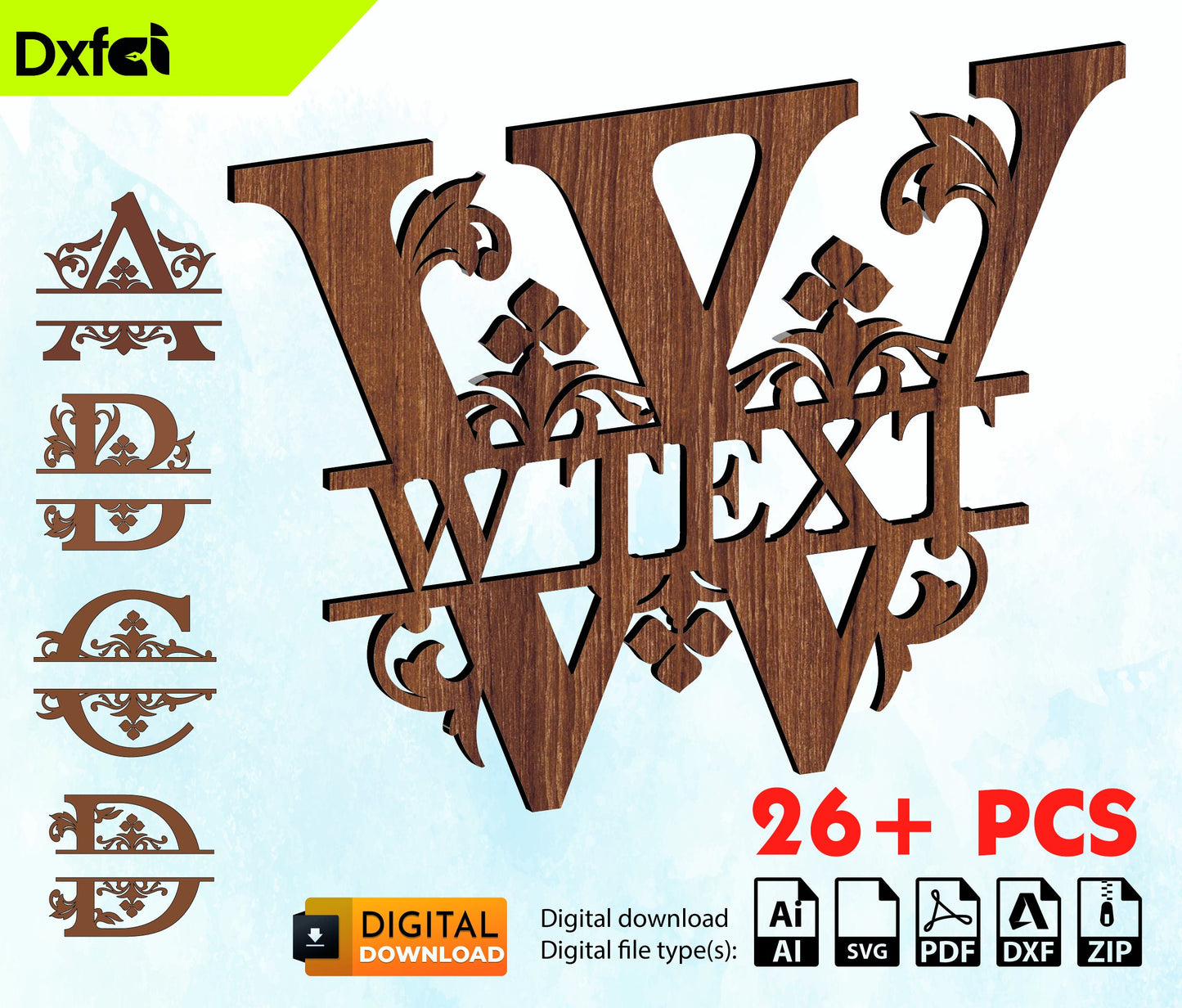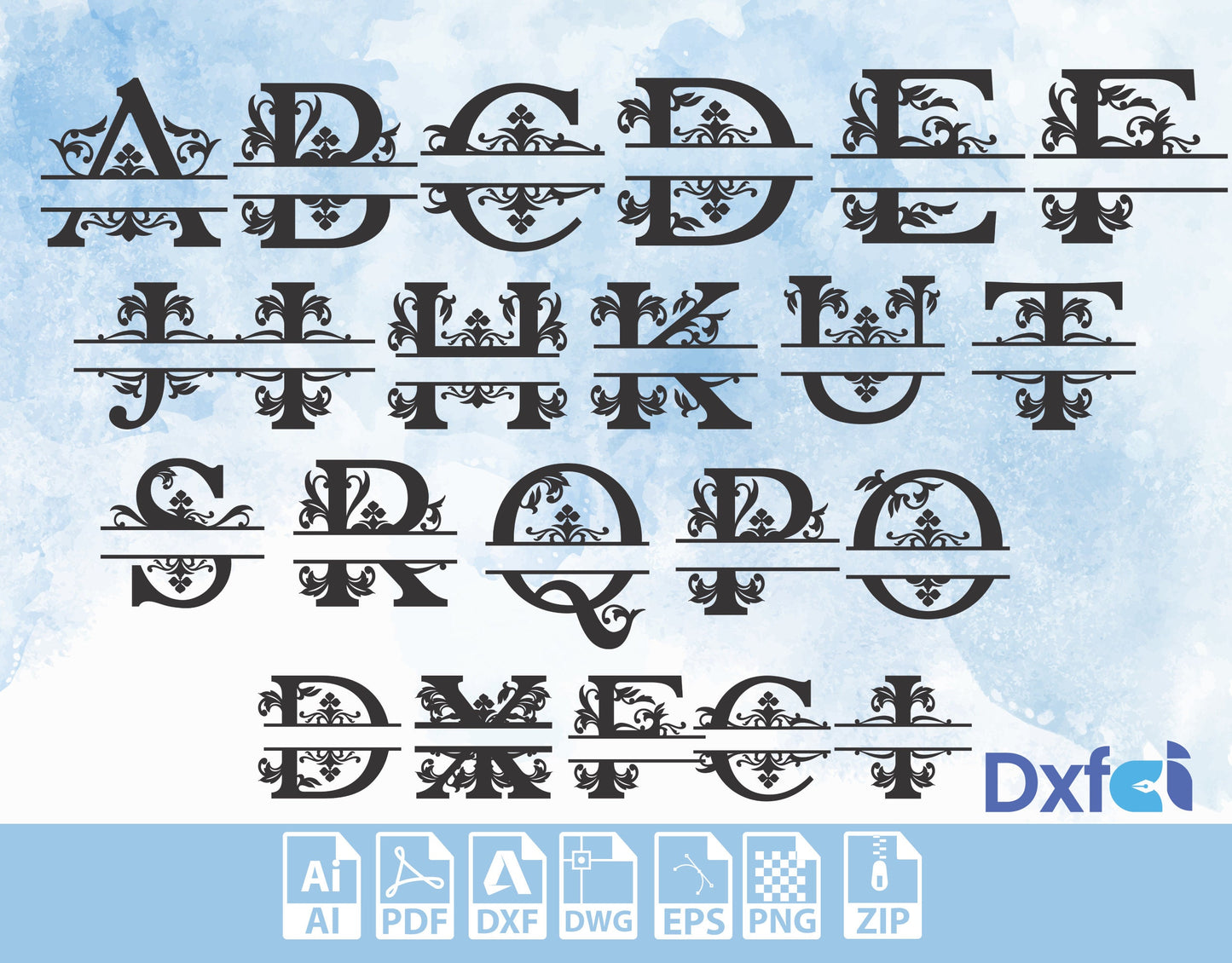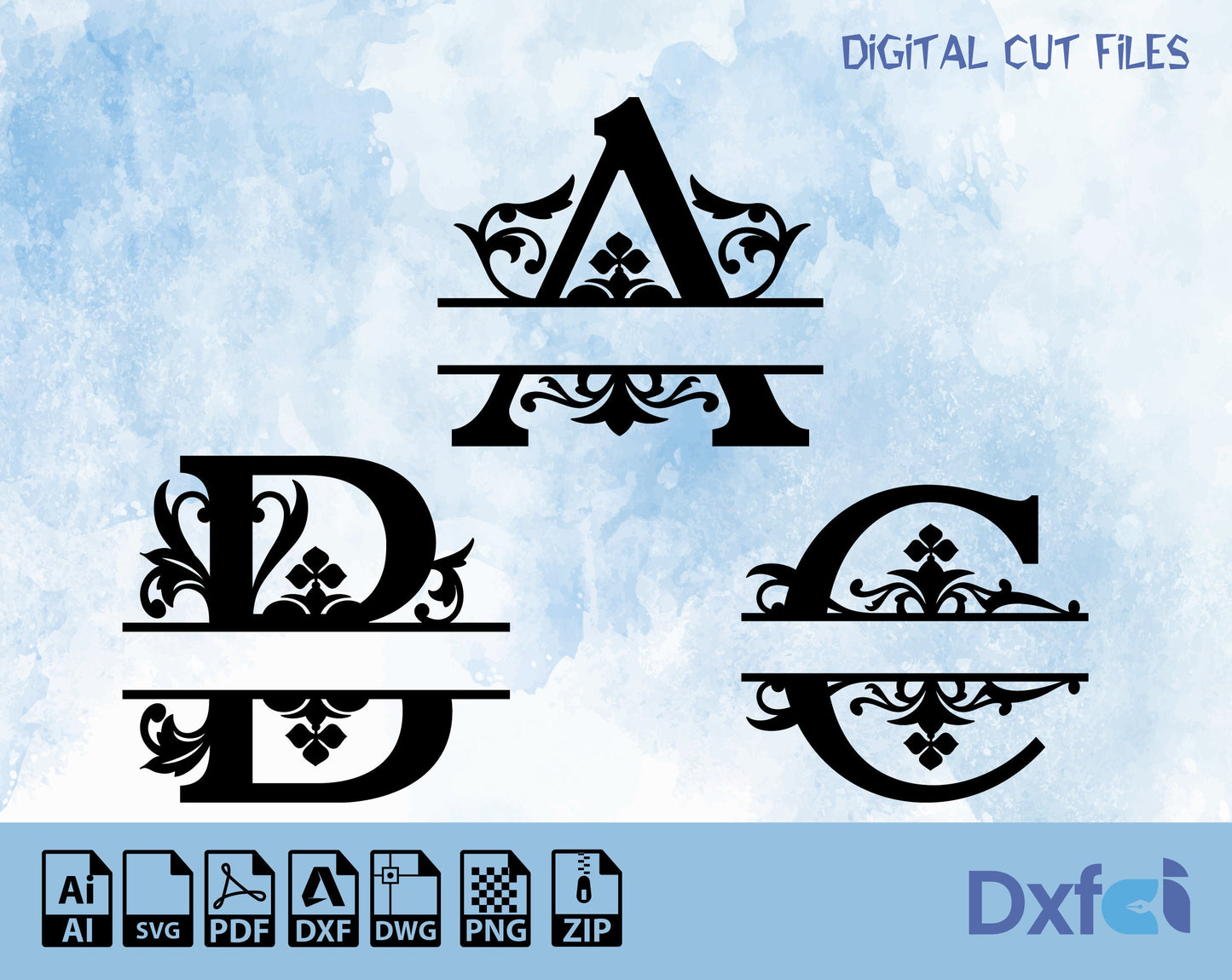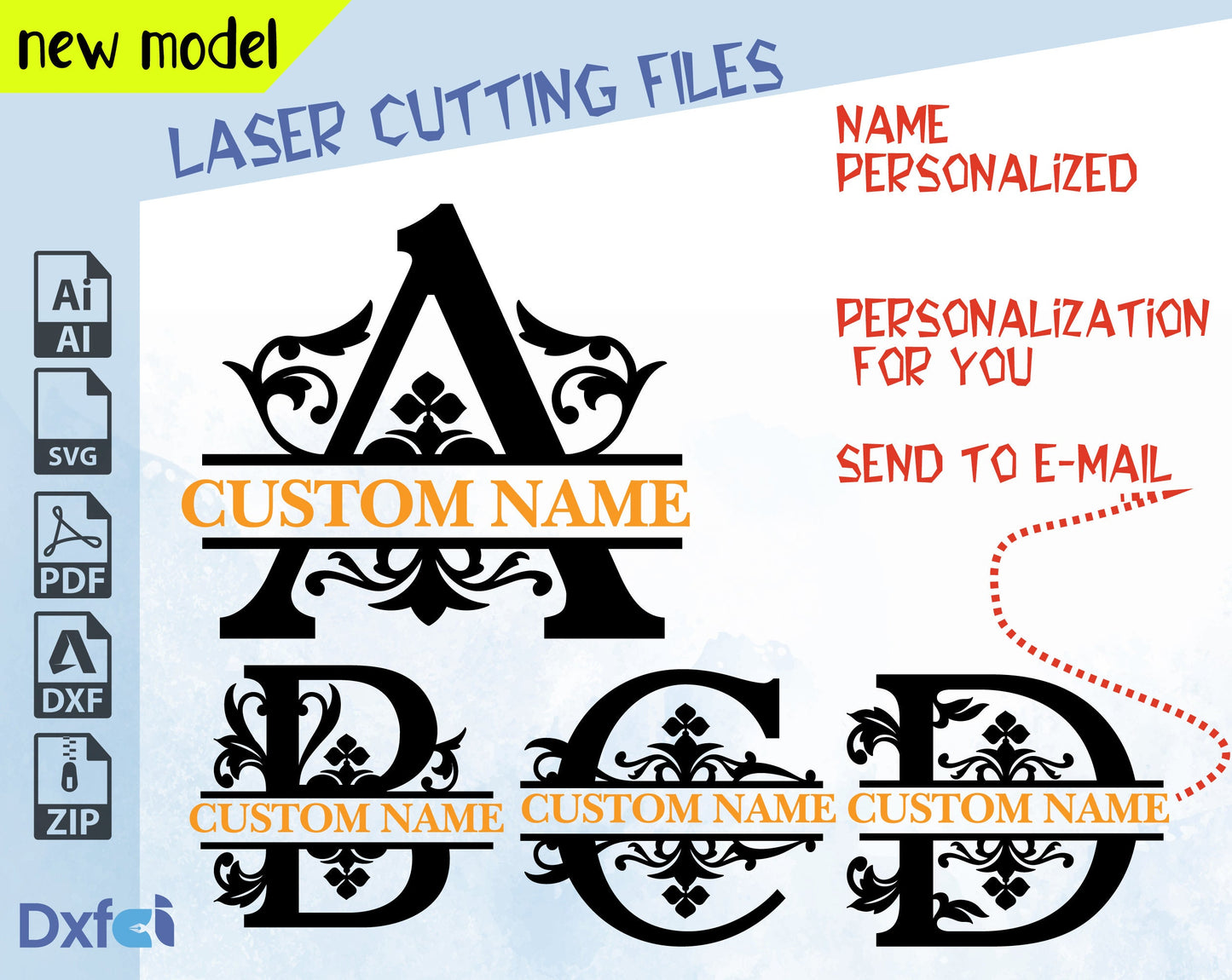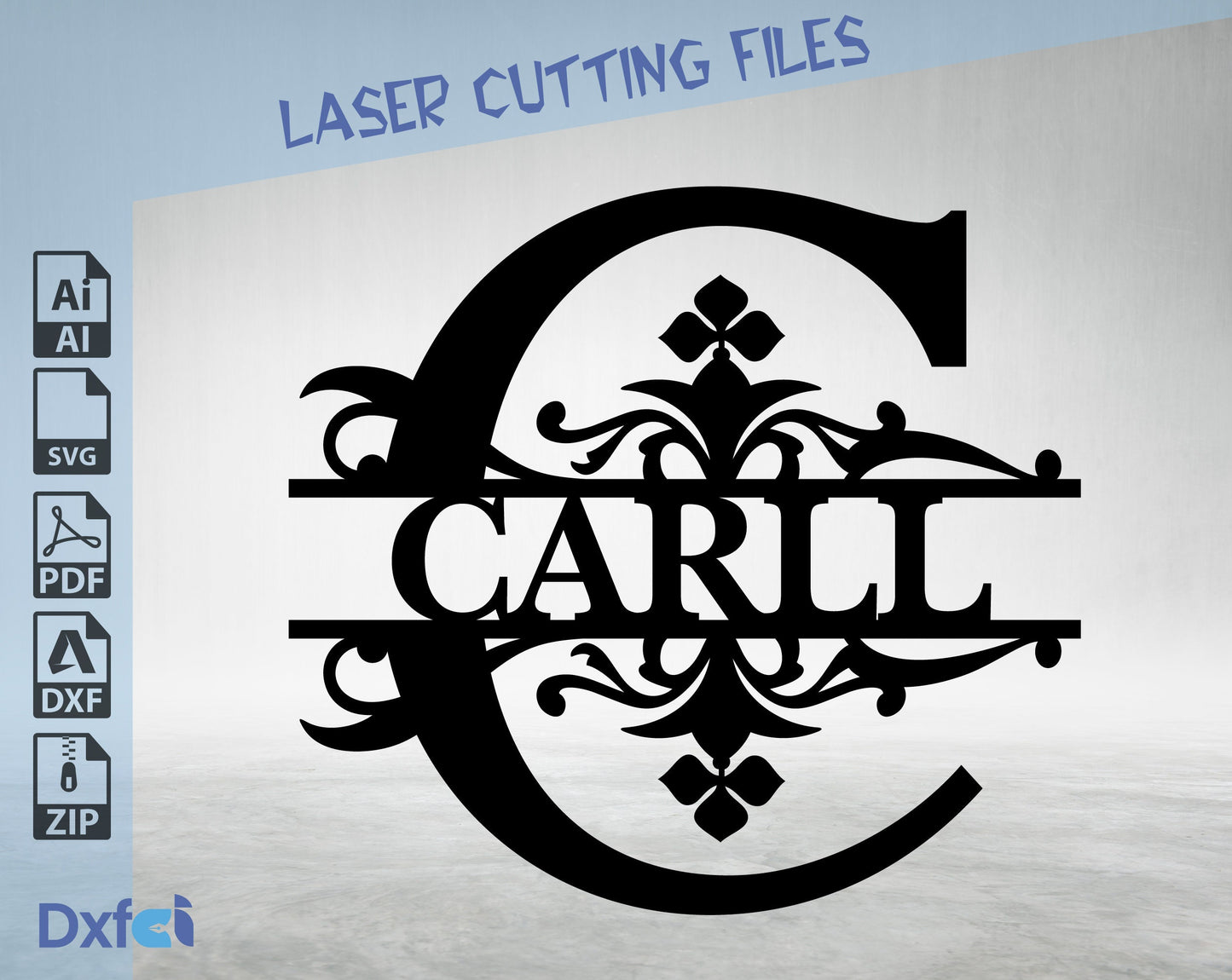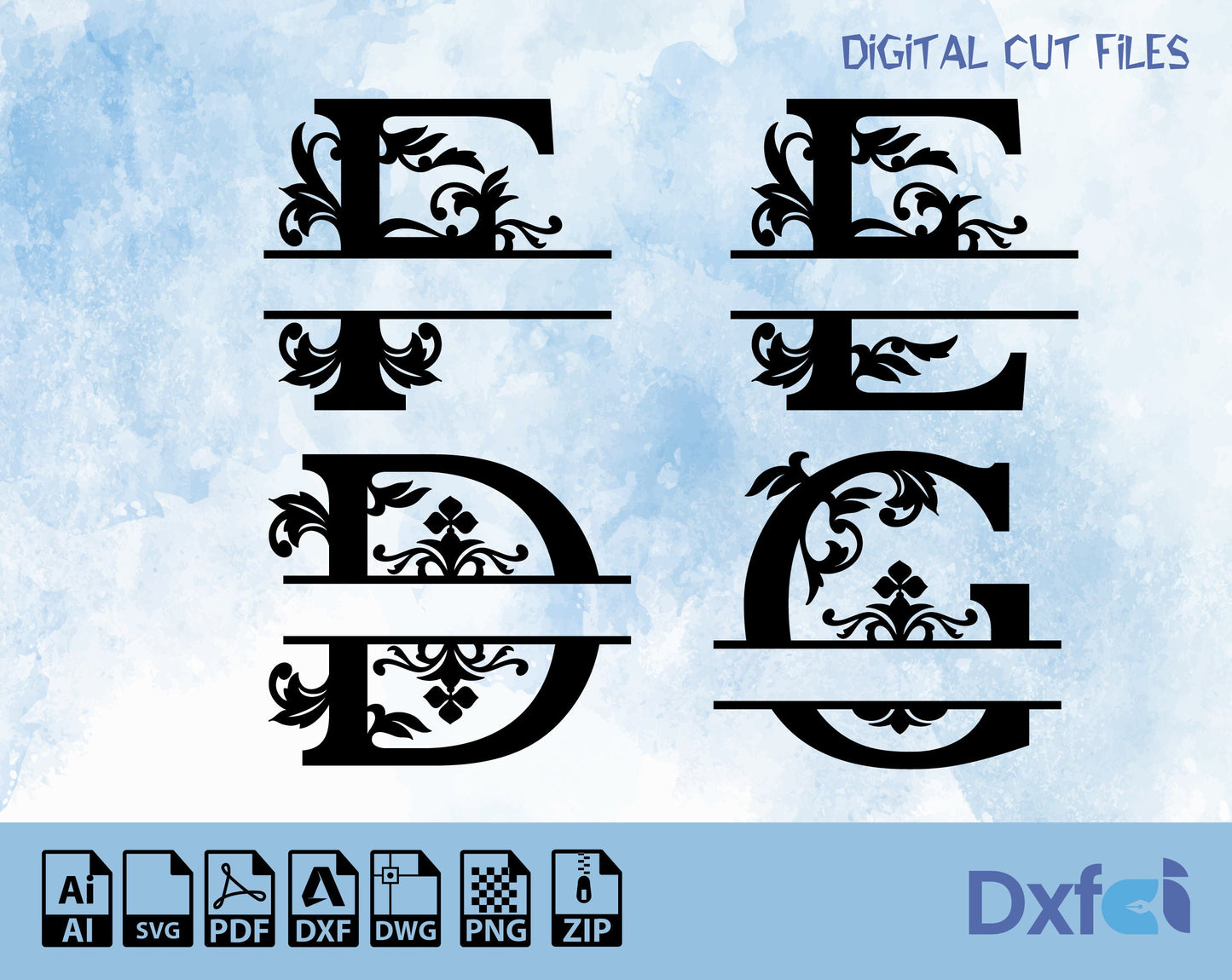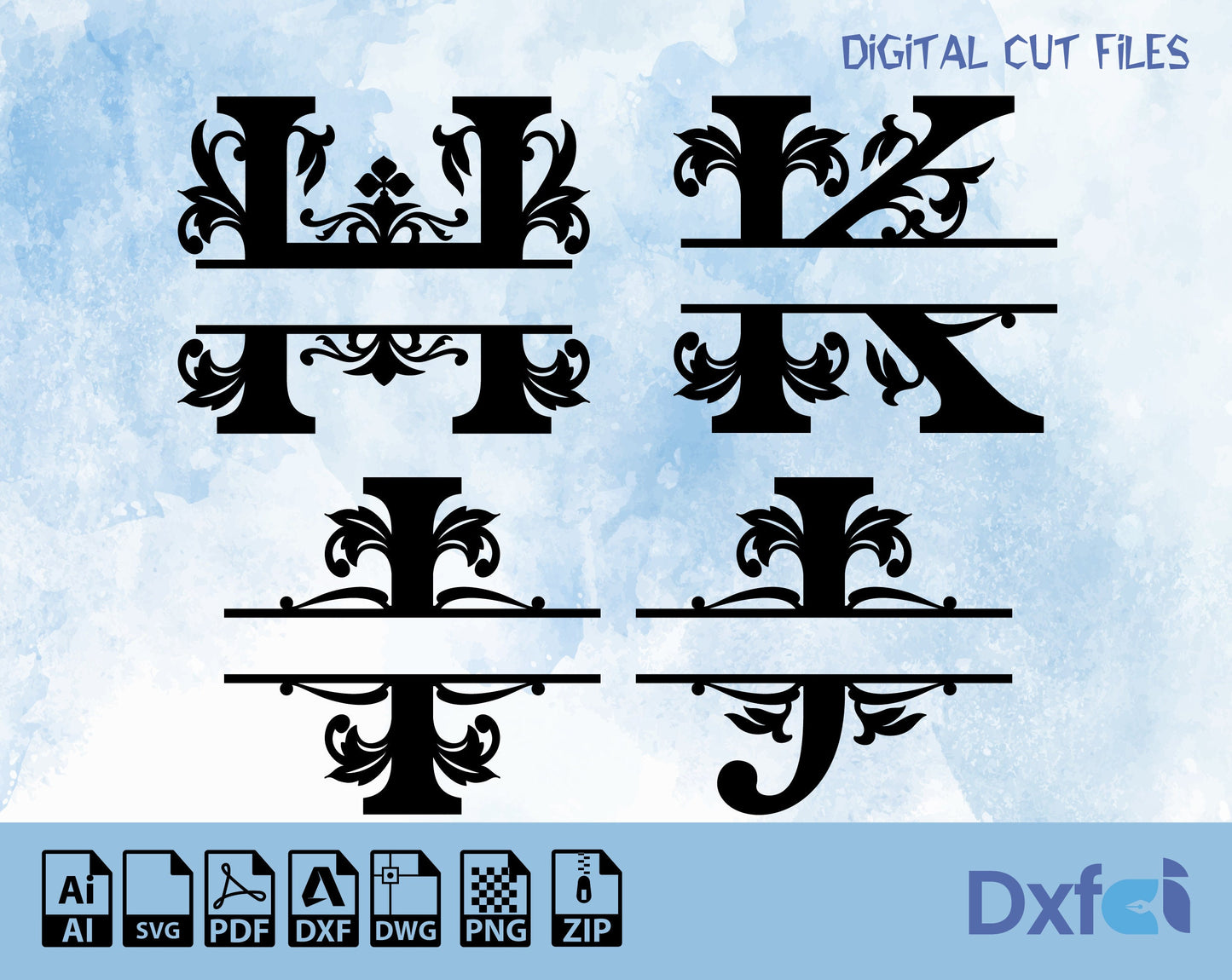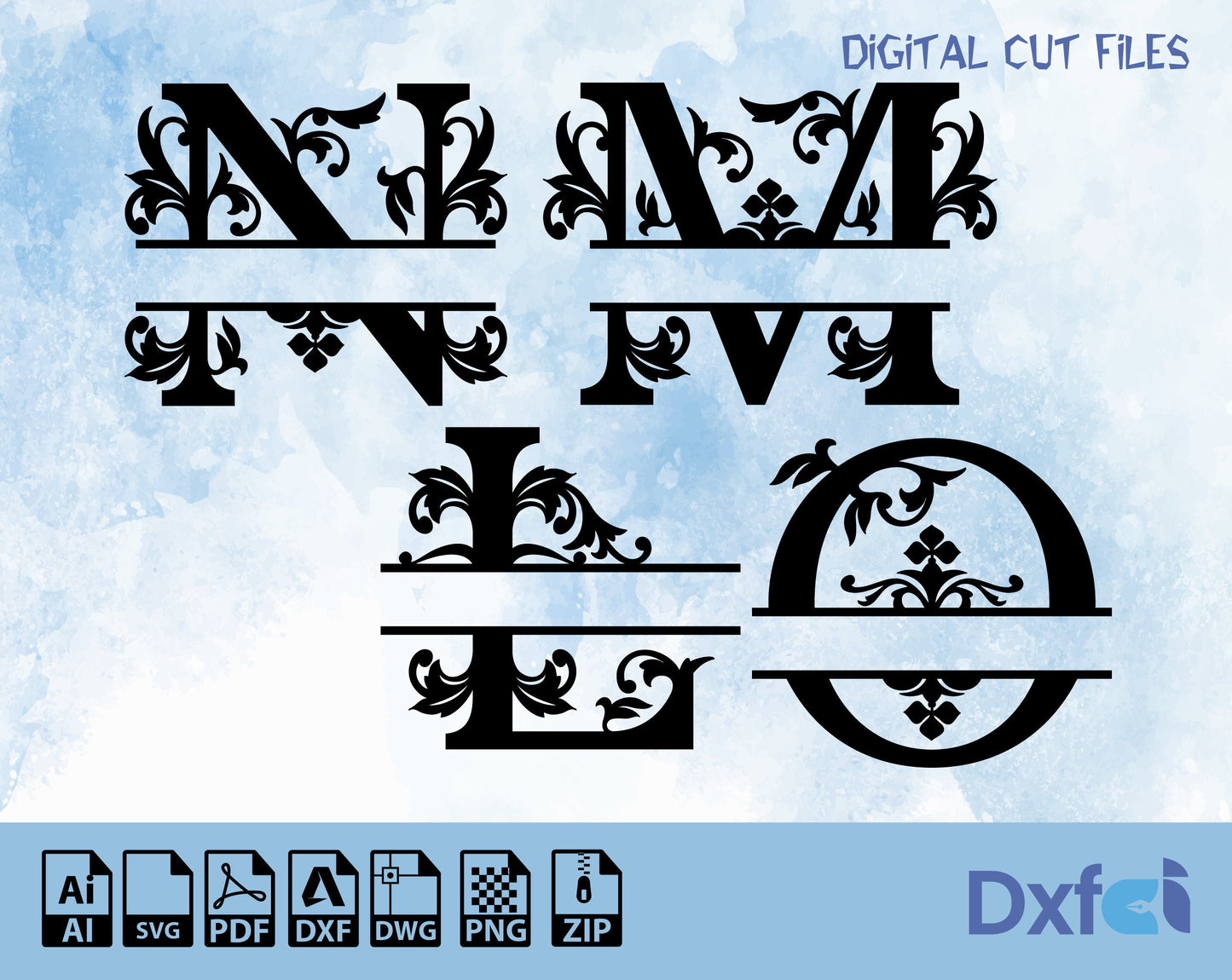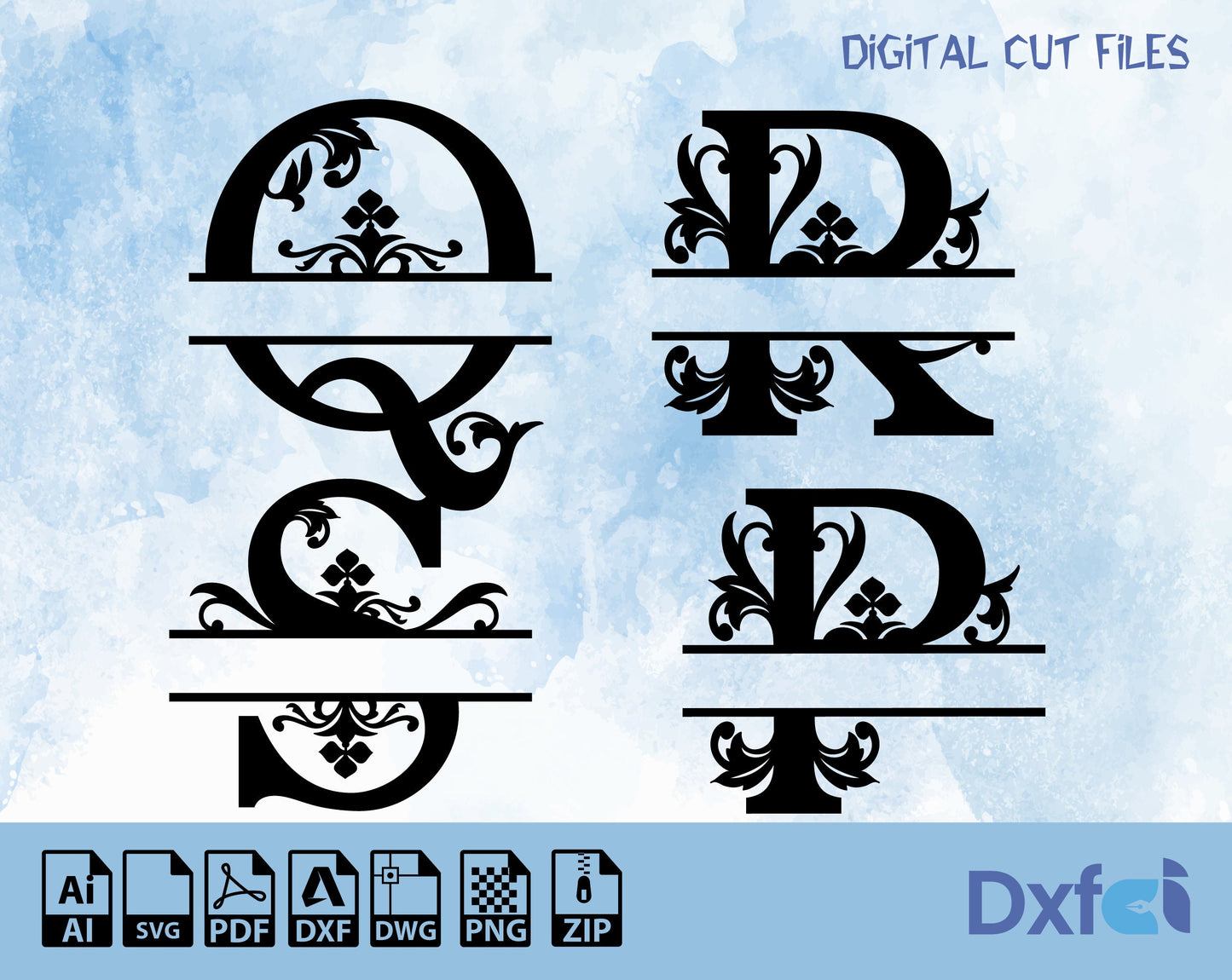
Custom Monogram Alphabet Font 26+ Letters Svg Cdr Dxf Files for Laser Cut Wall Art Decoration
Custom Monogram Alphabet Font - 26+ Letters SVG, CDR, DXF, PDF Files for Laser Cut Wall Art Decoration
Elevate your home decor with our Custom Monogram Alphabet Font! This unique and elegant font features over 26 beautifully designed letters, perfect for creating stunning wall art and personalized signs. Each letter is crafted with precision and style, making it ideal for laser cutting.